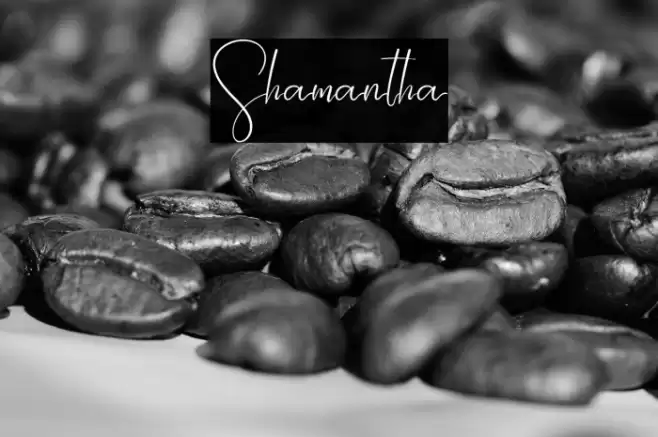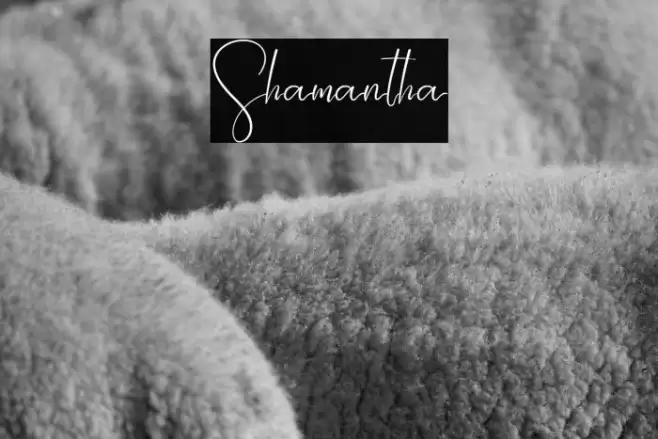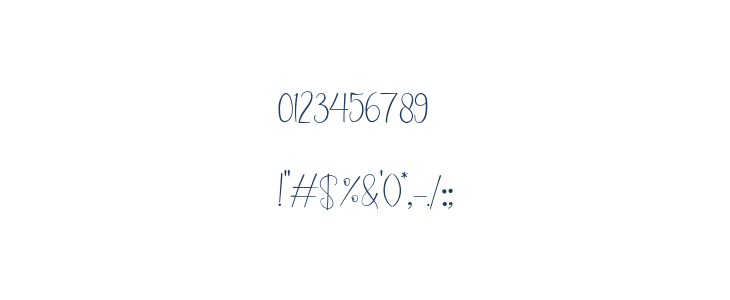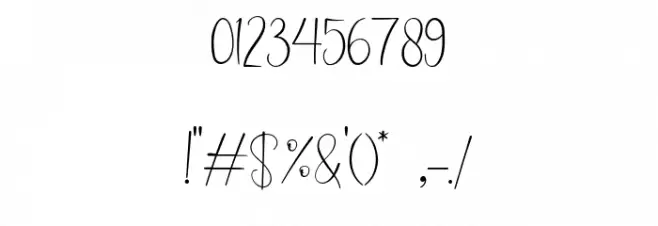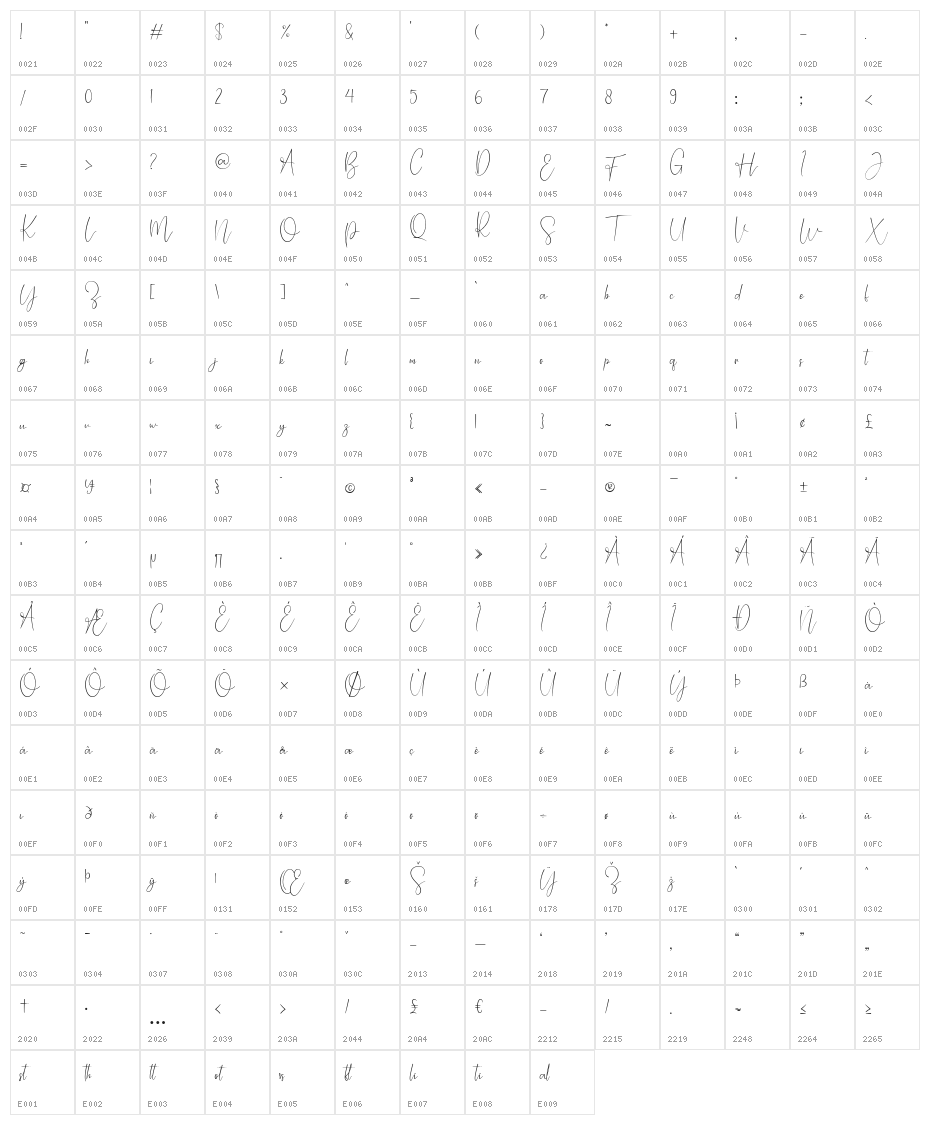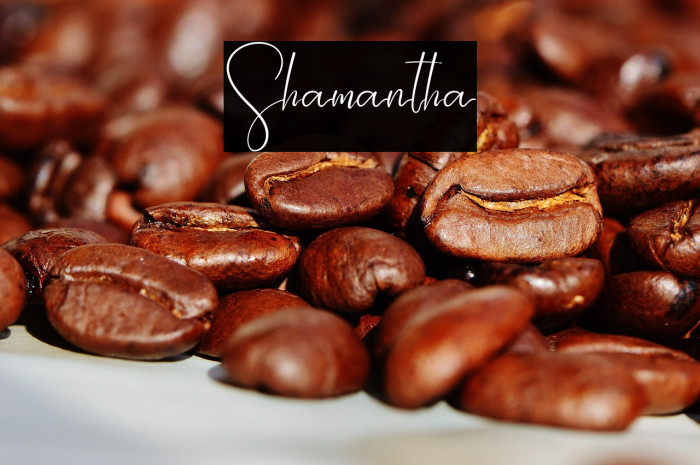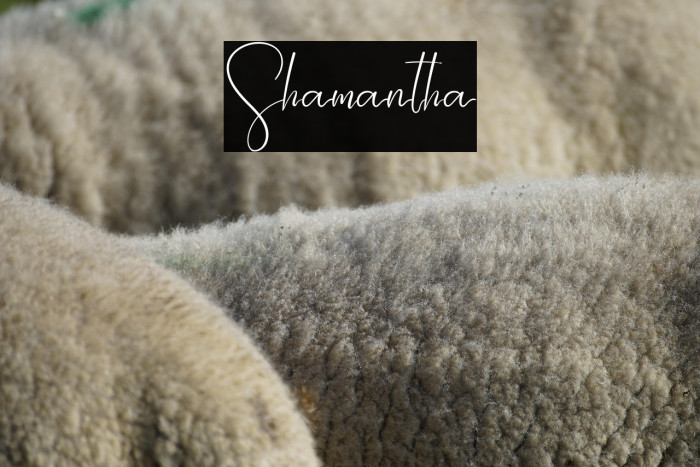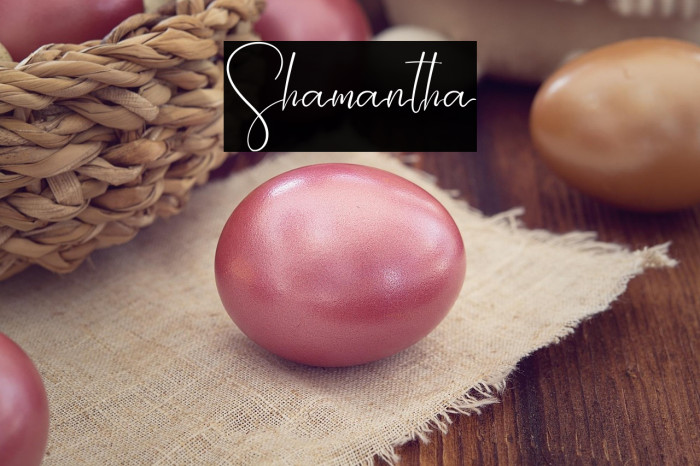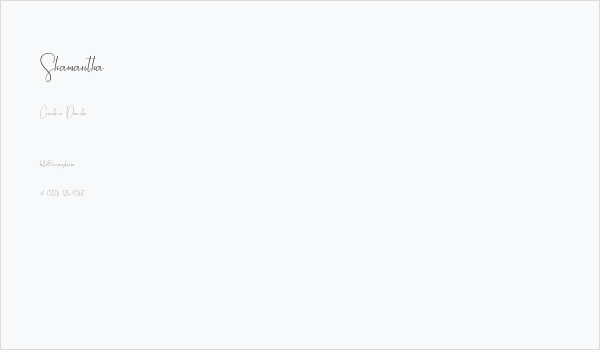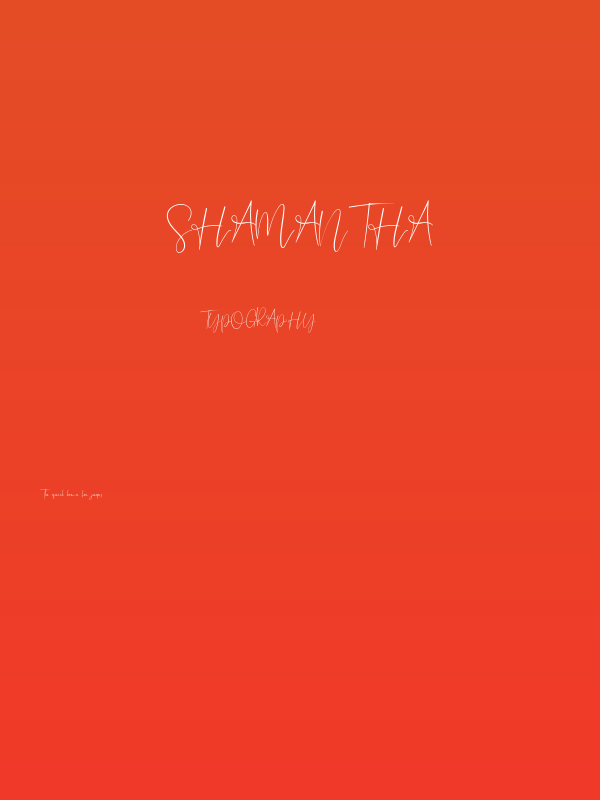
Shamantha Font
Shamantha Description
This font features an elegant and flowing script style, characterized by its smooth, cursive strokes and a sense of fluidity. The uppercase letters are tall and slightly exaggerated, giving them a dramatic flair, while the lowercase letters maintain a consistent, graceful flow. The numerals are distinct and maintain the same elegant style, ensuring readability. Special characters are designed to complement the overall aesthetic, with a touch of sophistication. The font's delicate lines and artistic curves make it ideal for projects that require a personal, handwritten touch.
An elegant, flowing script font with smooth, cursive strokes from Uncategorized fonts.
- Proposed Projects: Ideal for wedding invitations, greeting cards, branding, and elegant logo designs.
- Overall Style: Elegant, Decorative
- Use Case: Logos, Invitations, Greeting Cards